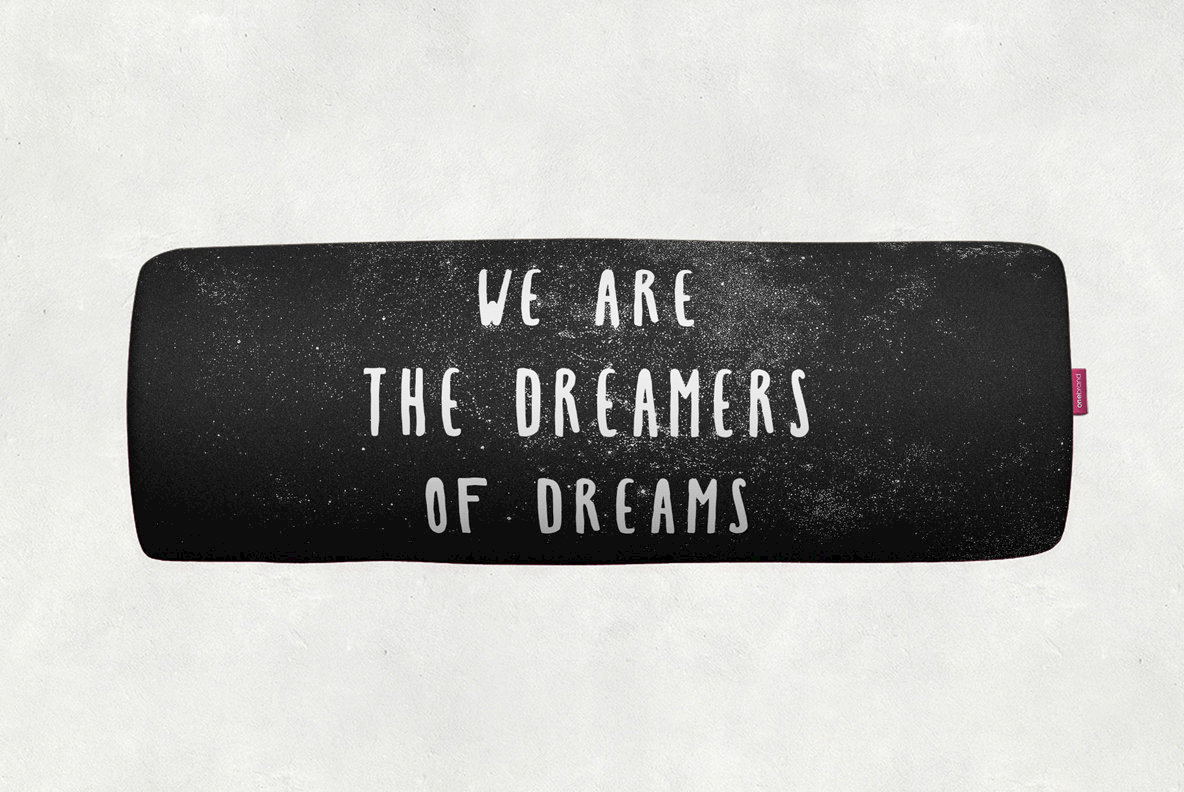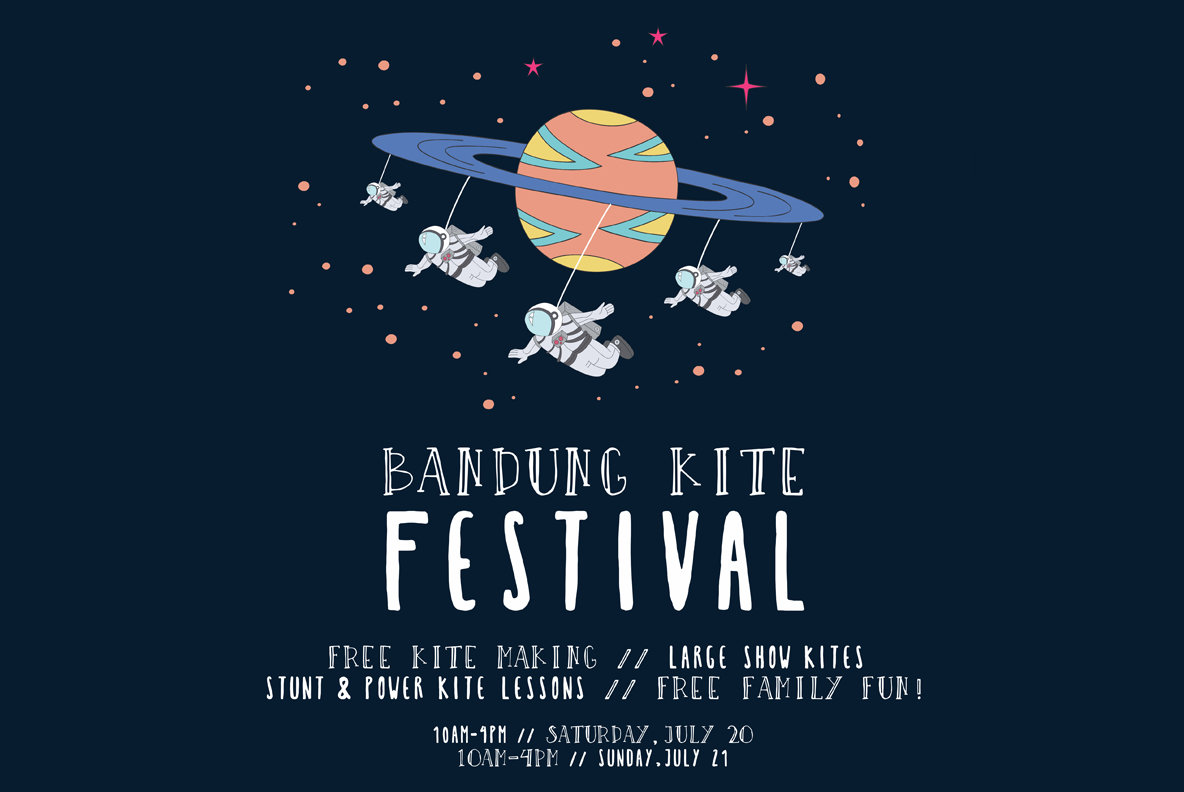
Space Out Font
Space Out is a playful, handwritten style font design published by Collapse Studio. You can also combine the two font styles with the extra space elements to create interesting sci-fi themed designs.
- Space Out 1
- Space Out 2